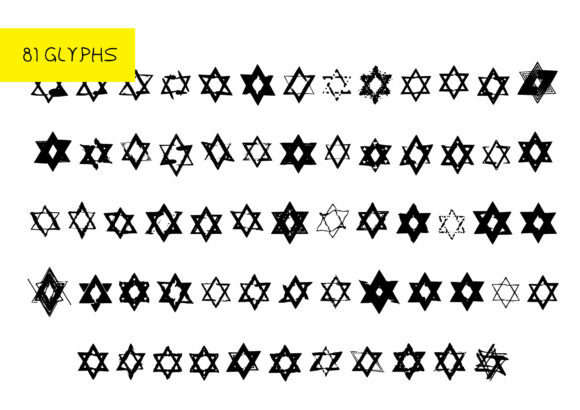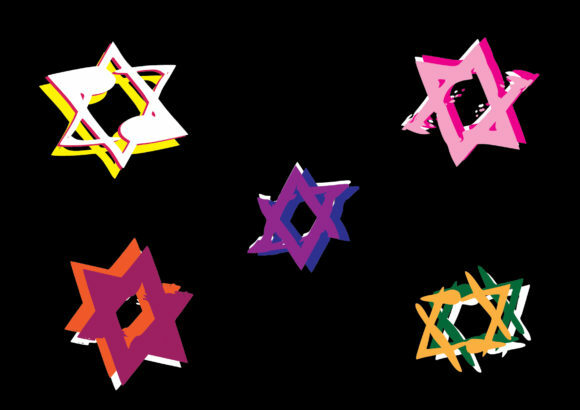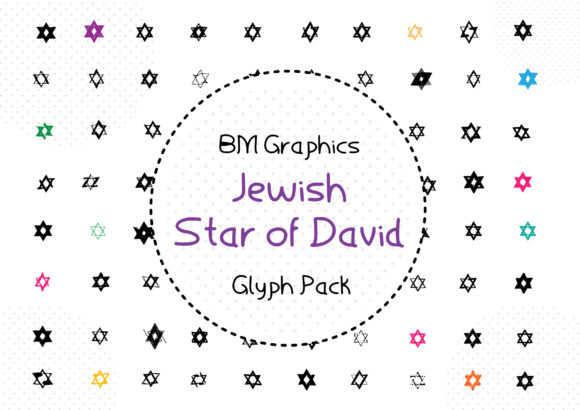
BM Graphics – Jewish Star of David Font
About BM Graphics – Jewish Star of David Font
The Jewish Star of David dingbats font sounds like a beautiful and versatile resource for various projects. Here are some ideas on how you can use it:
1. Jewish Holiday Designs: The Star of David is a significant symbol in Judaism, so this font is perfect for creating designs related to Jewish holidays such as Hanukkah, Passover, or Rosh Hashanah. Use the glyphs to create greeting cards, invitations, or decorations.
2. Educational Materials: If you’re creating educational materials about Judaism or Jewish history, the Star of David glyphs can be used to visually represent the symbol. It can add a nice touch to worksheets, presentations, or interactive learning materials.
3. Jewish Organization Logos: For Jewish organizations, synagogues, or community groups, the Jewish Star of David font can be a valuable resource for creating logos and branding materials. Use the glyphs to incorporate the symbol into your designs and create a unique identity for your organization.
4. Personalized Jewelry and Gifts: The Star of David glyphs can be used to create personalized jewelry or engraved gifts. Whether it’s a necklace, bracelet, keychain, or engraved item, the font allows you to easily incorporate the Star of David symbol into the design.
5. Art and Craft Projects: Let your creativity flow by incorporating the Star of David glyphs into art and craft projects. You can use them for painting, drawing, stenciling, or even as templates for cutting materials like paper or fabric.
Remember to respect the cultural significance of the Star of David and use it appropriately and respectfully. Ensure that your usage aligns with the intended purpose and guidelines of the font. With the Jewish Star of David dingbats font, you have a versatile tool to enhance your Jewish-themed projects and celebrate the symbol’s meaning. Enjoy creating and designing!